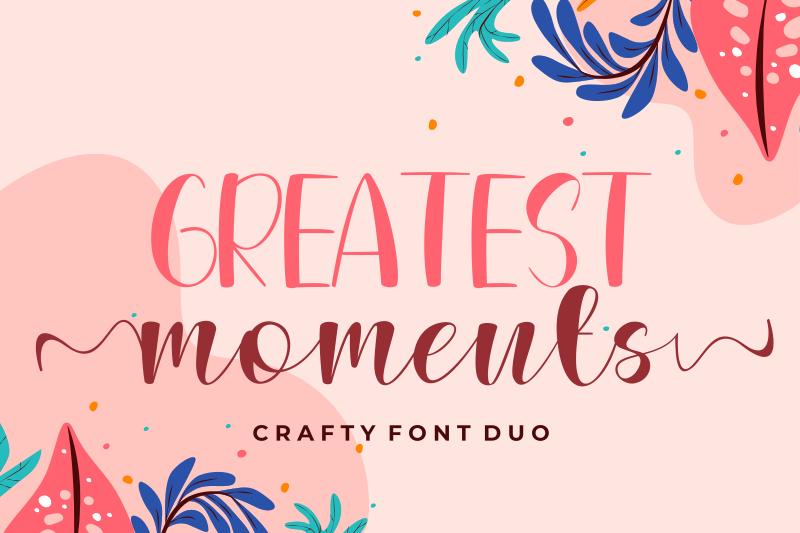
Greatest Moments Font Description
Greatest Moments is a lovely and relaxed duo font (sans serif and script). Incredibly versatile, this font fits a wide pool of designs, elevating them to the highest levels. This font is PUA encoded which means you can access all of the glyphs and swashes with ease!